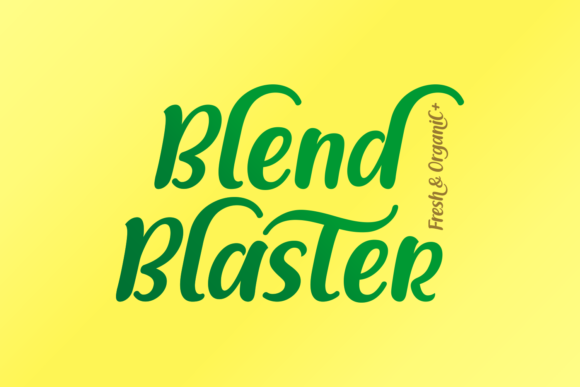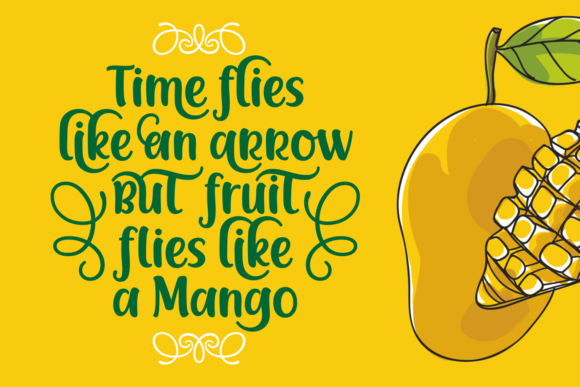
Racy Mango Font
db-ku.com - Script & Handwritten -- Racy Mango is a fruity and fresh handwritten font with a sweet charm. It will add a special feel to any creative project.